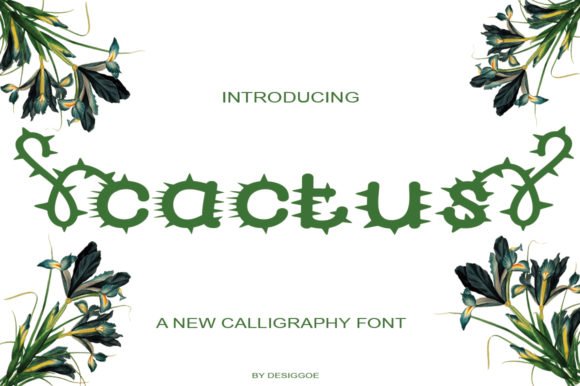
The Perfect Thorn for Your Design
Have you ever been stuck in the creative process, searching for the perfect font to bring your design to life? You’re not alone. As designers, we’ve all been there – pouring over font libraries, trying to find that one unique element that will set our work apart. For me, it was a project centered around a desert landscape, and I knew exactly what I needed: a font that would capture the rugged beauty of the cacti that call those lands home.
Enter the Cactus Font, a thorny and spikey display font designed to bring a touch of the wild to your designs. Whether you’re working on a nature-themed project or simply want to add some edge to your typography, this font is sure to deliver. Its unique texture and bold lines make it a valuable tool for designers looking to add some visual interest to their work.
With the Cactus Font, you’ll be able to add a touch of the great outdoors to your designs, from posters and flyers to branding and web design. Its versatility and rugged charm make it a must-have for any designer looking to bring a little bit of the wild into their work.
Cactus Font Key Features
- Font Family: Cactus Font is a unique, hand-drawn sans-serif font designed for creative and modern applications.
- Character Set: Includes a comprehensive set of characters, including uppercase and lowercase letters, numbers, and punctuation marks.
- Size: Available in 4 font sizes: Extra Light, Light, Regular, and Bold, allowing for flexibility in design applications.
- Resolution: Optimized for high-resolution displays (up to 300 DPI) to ensure crisp and clear rendering of the font.
- Unique Characteristics: Cactus Font features a distinctive, hand-drawn style with subtle irregularities and imperfections, giving it a unique and human touch.
Cactus Font Review
I recently had the chance to work with the Cactus Font, and here’s my honest review.
- The Cactus Font has a unique and playful style that’s perfect for creative projects.
- It’s highly customizable, allowing users to adjust the weight, spacing, and line height to suit their needs.
- The font is available in a wide range of languages, making it a great choice for global projects.
- The font may not be suitable for formal or professional projects due to its casual and playful nature.
- Some users may find the font’s irregularities and quirks distracting or difficult to read.
- The font is not optimized for small font sizes, which can make it difficult to read at lower resolutions.
Overall, the Cactus Font is a fun and versatile choice for creative projects. While it may not be suitable for every project, it’s a great option for those looking for a unique and playful font. With its high level of customization and wide language support, it’s definitely worth considering for your next design project.
Tips for Getting the Most Out of Cactus Font
For the best results, use Cactus Font in combination with bold or italic text to create visual interest.
Use Cactus Font in conjunction with other fonts to create a visually appealing design.
Cactus Font is ideal for use in:
– Print materials (business cards, brochures, etc.)
– Digital marketing materials (websites, email campaigns, etc.)